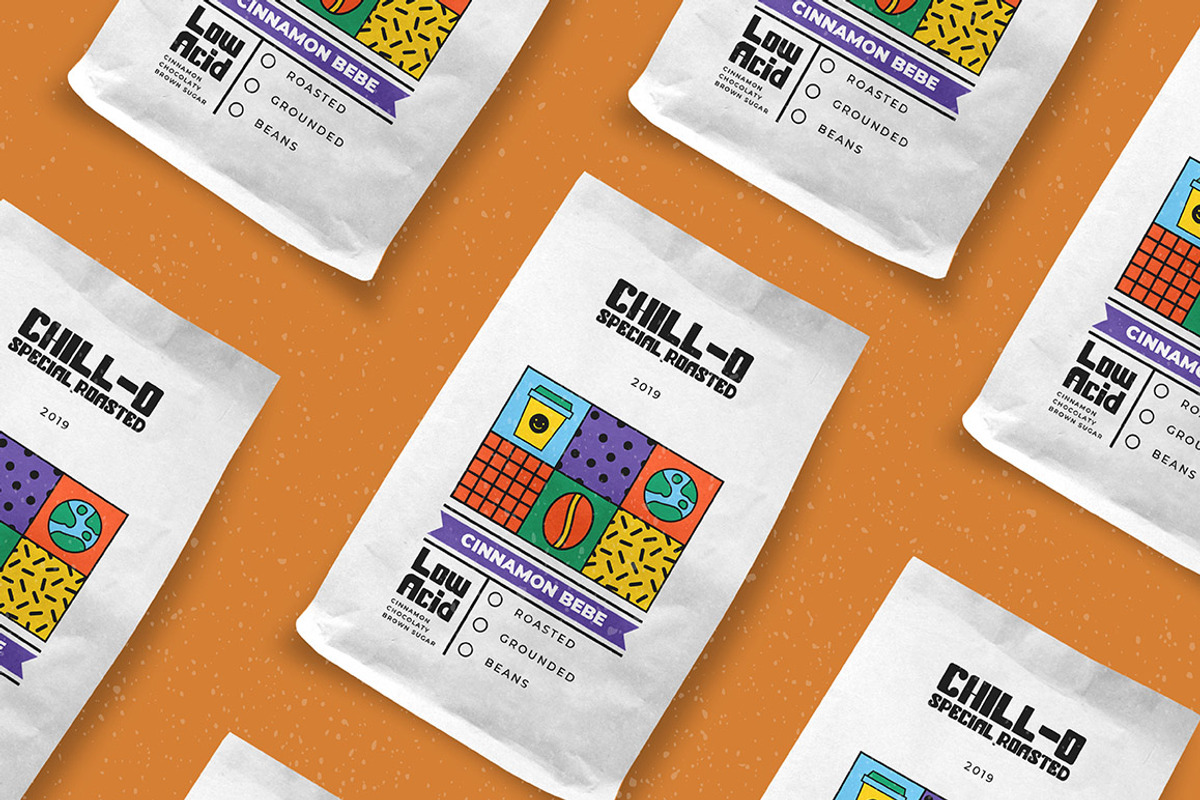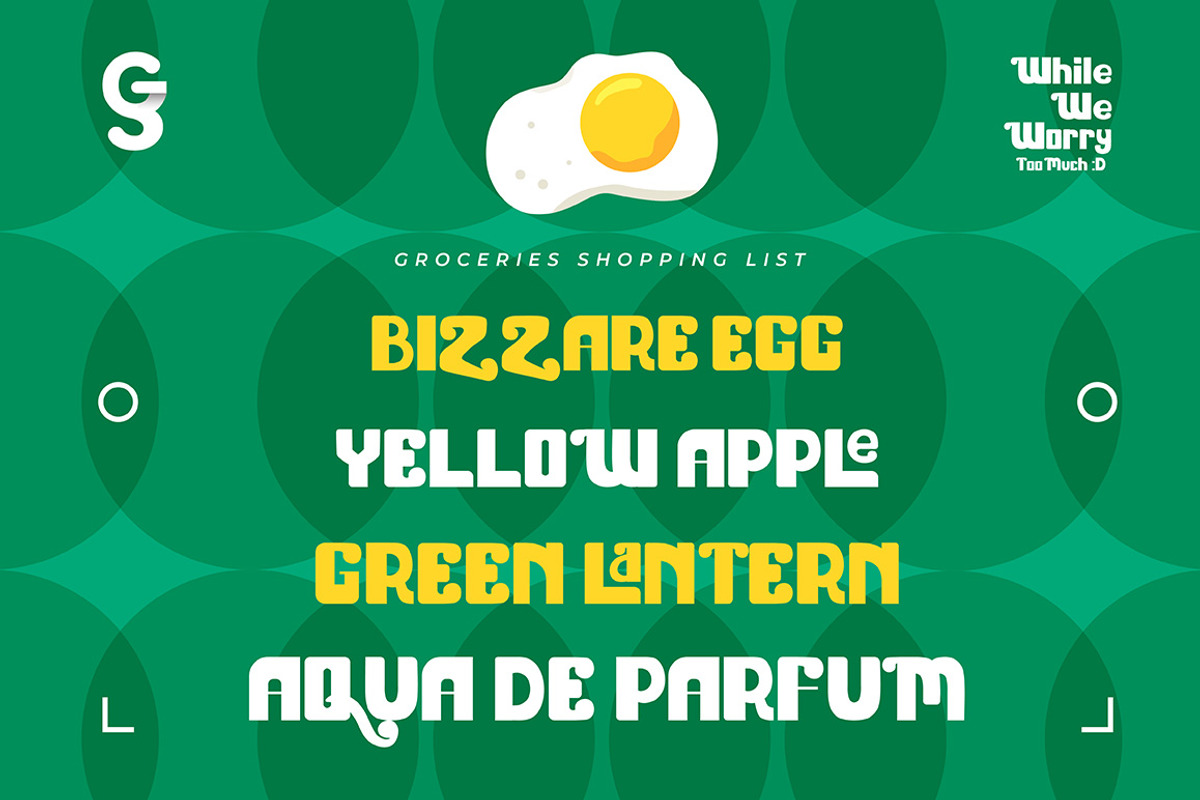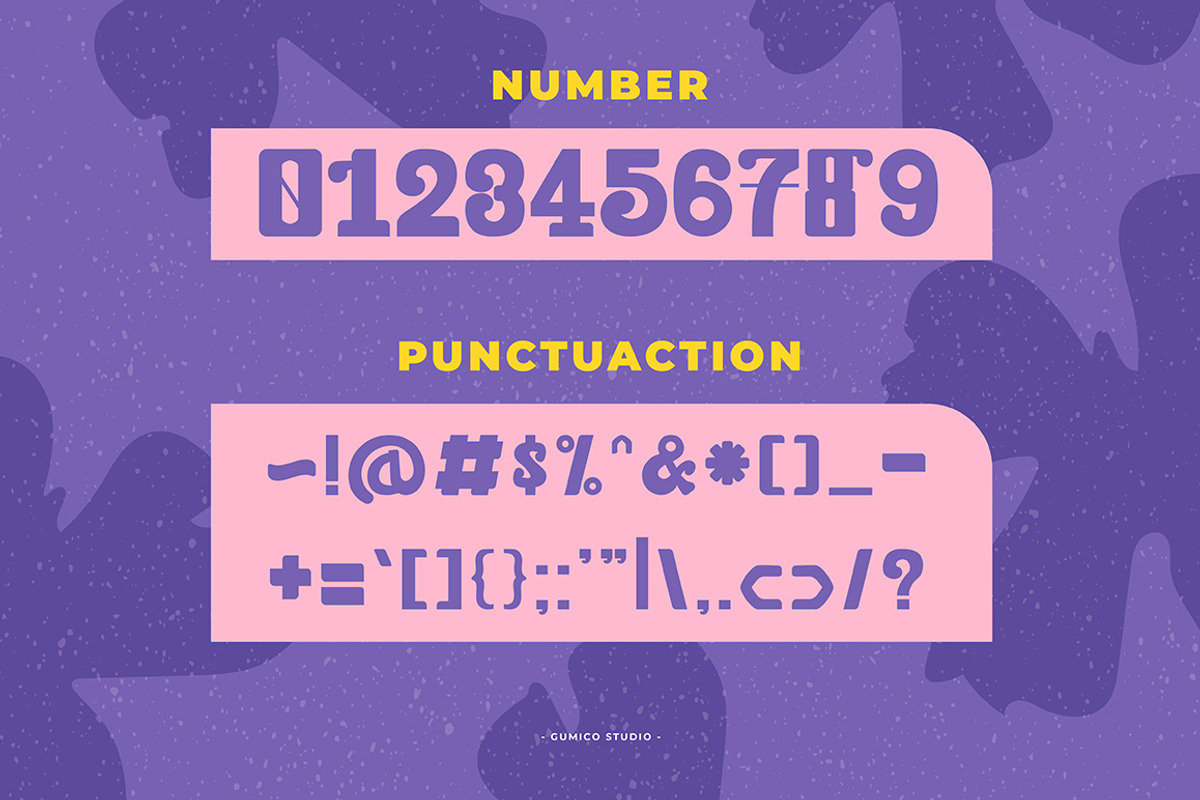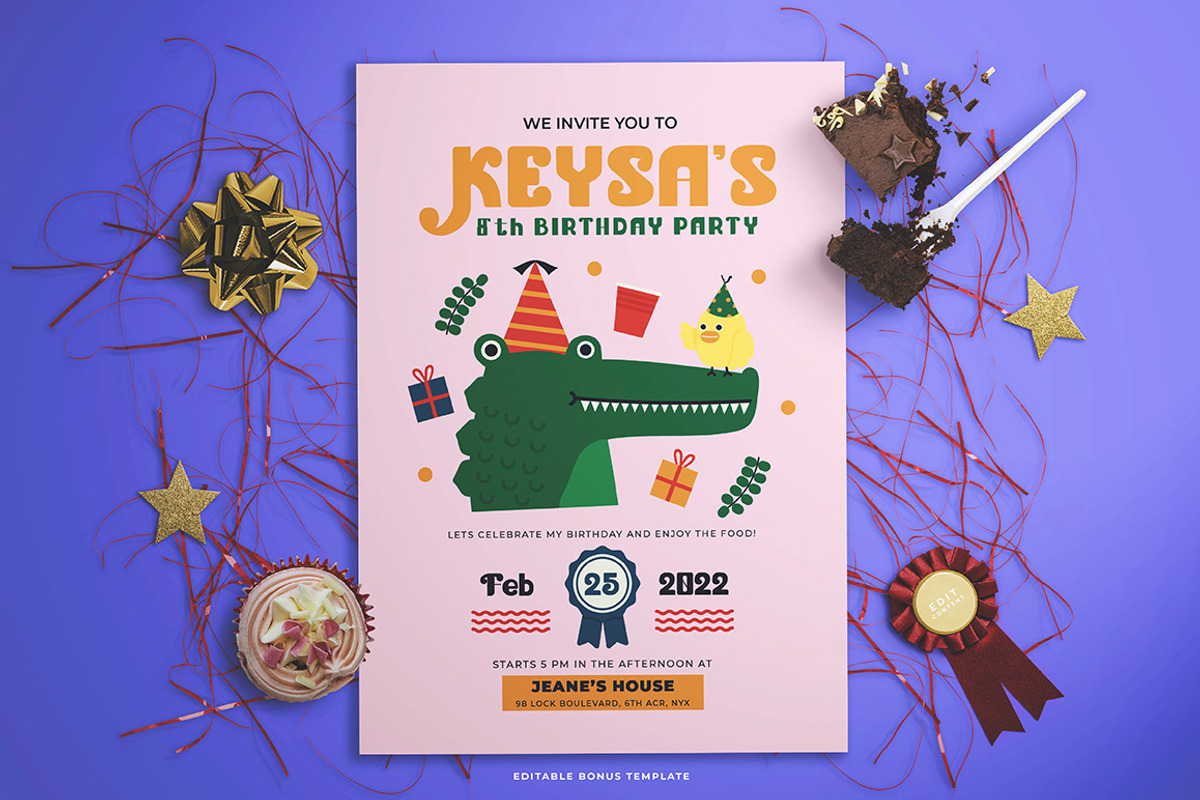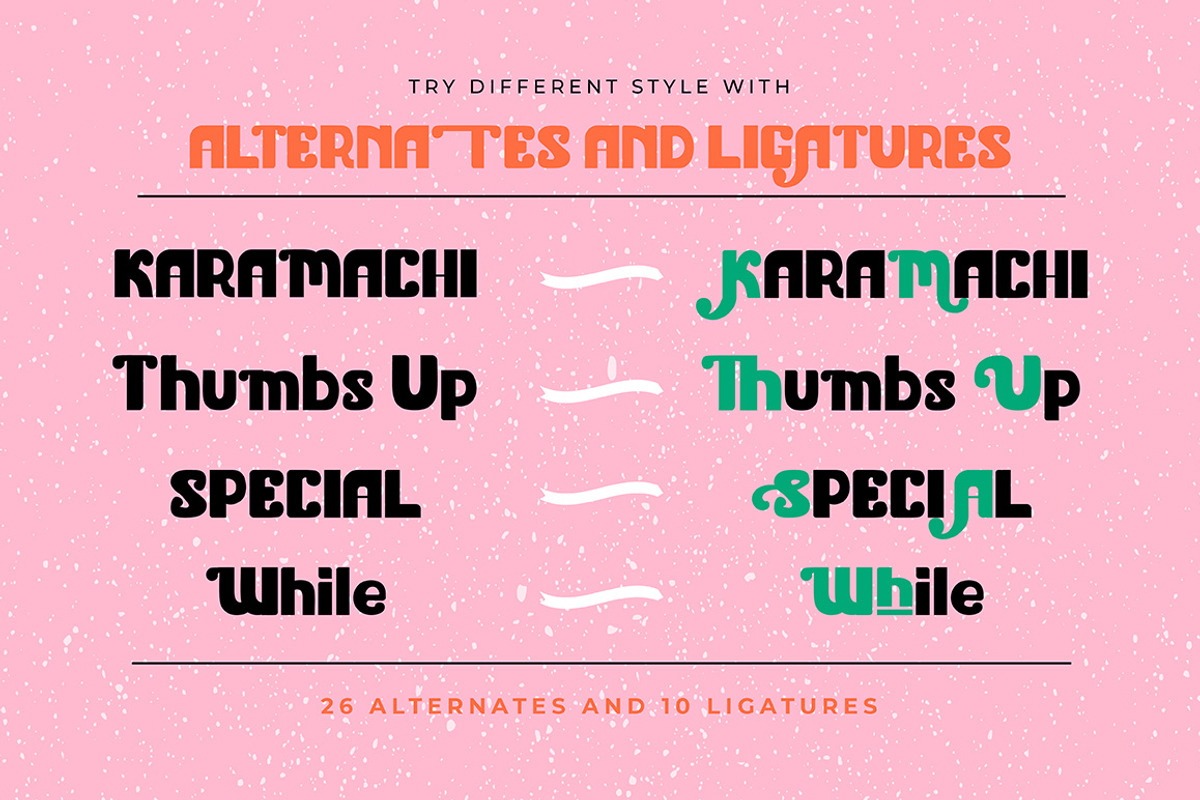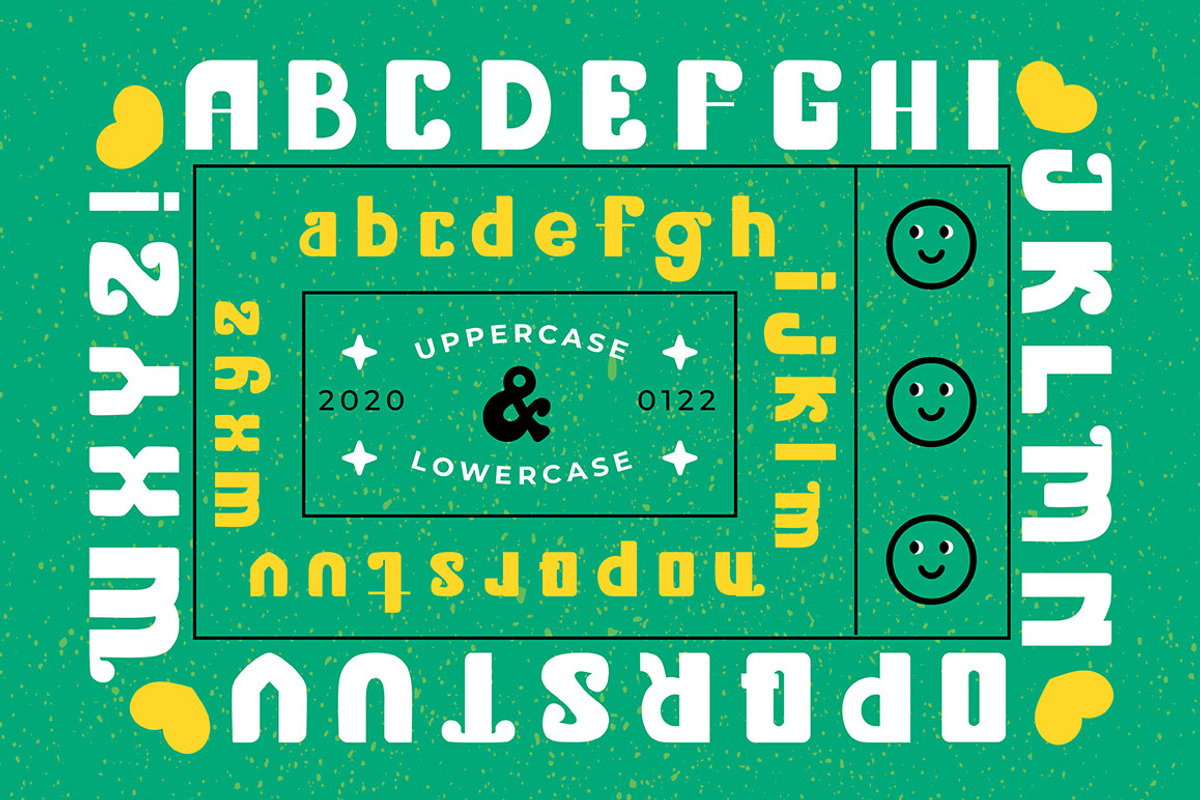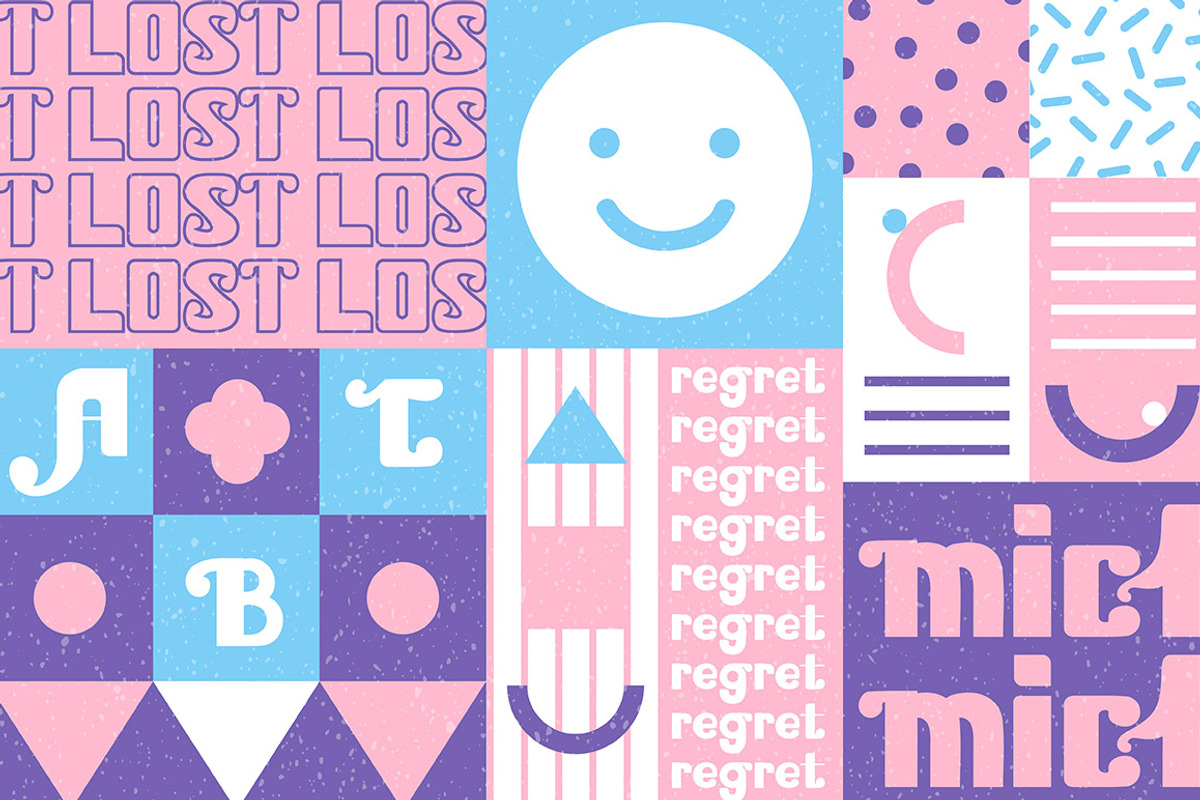
HAZZLE Typeface + BONUS
Hazzle Typeface is inspired by 80's cartoon style typeface, Hazzle name itself is try to mock the word "hassle" that means inconvenience, because we want to make our font easy to use and hassle-free. Anyway this typeface are 100% suitable for any retro mood or something fun and playable, it has alternates and ligatures you can use to create more creative look possibilities.
This typeface comes up with extras that can be use for birthday invitation. The cute character in it also can you mix and match to another thing as you like to boost cuteness on yours! If you want to add something that fun and has a little hint of retro, this typeface family is your answer. Hazzle Typeface also suitable for poster, logotype, apparel designs, or any design requirements.
OpenType features with Ligatures in some characters and uppercase Alternates that you can mix and match any letters to fit your design. To access the alternate glyphs, you need a program that supports OpenType features such as Adobe Illustrator CS and Adobe InDesign.